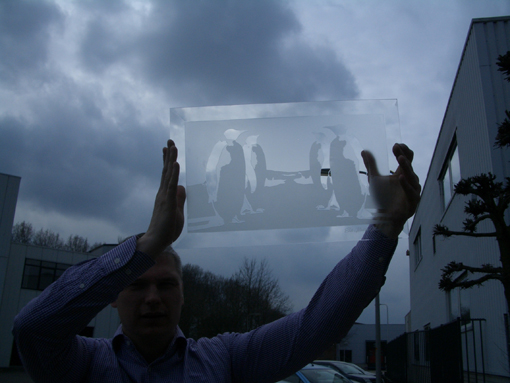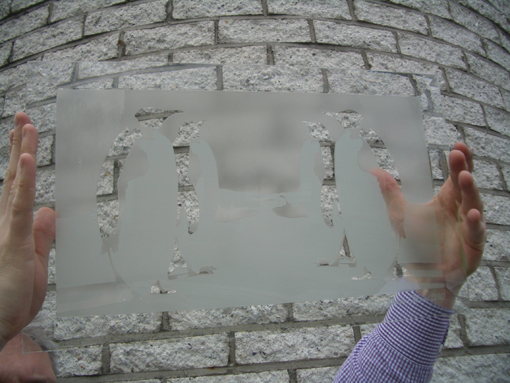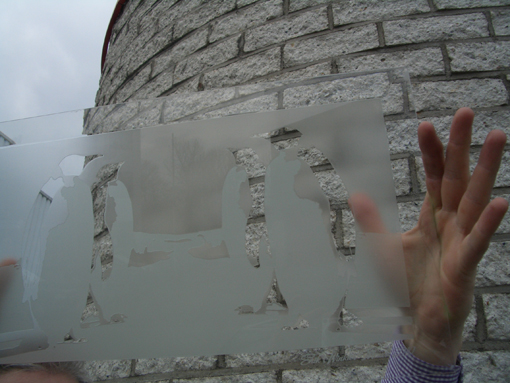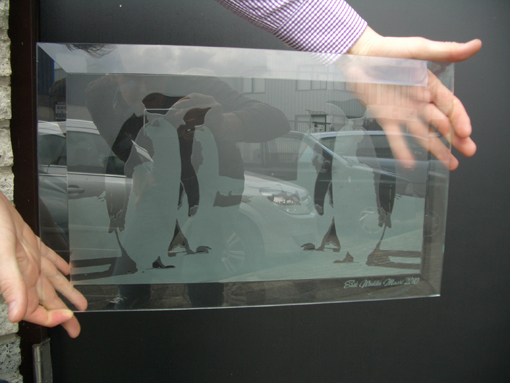
White Aciiiiiid
Since my come back from Praque I had some things that had to be done.
One of them is a white acid test.
After a few tests I made this 3 toned test piece.
Still in the learning phase ;-)
I love your enthusiasm. One thing about you Erik, when you decide you are going to do something, nothing holds you back, I admire that. )
Congratulations on your very first Acid Toned panel, I look forward to seeing what lies ahead. :)
Congratulations! You did good!
Now that you have gotten into toned glass you will find it is tricky to photograph accurately. You will find that the camera sees the toned light in a different manner
than your eyes and brain. Try photographing your glass from the inside of your building with the outside light in the background and it will read a lot better.
Keep it up.
I'll agree with Pat. The toned etching is very interesting as to how the light hits it.
Here's a couple pictures of the same panel. In the morning, it shows a positive image, and in the evening, it goes negative, and sometimes during the day, it completely disappears!
It's really interesting how it changes, which adds a certian mystique to the "all seeing eye".
When "toning" the white acid panel, there's two different ways of going about it. You can mask the panel, then remove sections of the art and tone them. Or, the white acid panel can be painted with asphaltum, then toned, or in combination. Adding the toning mask by painting, can achieve details that you can't get with a vinyl mask, like crosshatching, spounge textures etc.
Oh, and did I mention....if you're going to solution gild over the toned etching, you'll need to do the toning reversed, as the dark tone will yield a light gild, and the light tone will yield a dark gild....it starts messing with your mind a bit, trying to figure the design out!
You keep on as you are....I like your enthusiasm!
Nice work Erik very well done. I like the illustration you used for testing out the tones, it works well for this type of work.
Would look good silvered also. keep it up...
good job.
Next step will be an extra large one.
Have to look around in the shop where a nice one would fit.
I do not know if I will go for the typical 1880-1920 flowers theme, maybe something else again.
I want it to be curlywhurly, reflection of every day life, and beautifull in it self.
ME!!!! OFCOURSE! EUREKA, GET ME OUT OF THE BATH, I HAVE GOT IT!
I have to think about that.
Nice work on your Treble Embossing.
Me thinks Erik will soon discover Glass Edge Lighting. :roll:
Not being at all familiar with acid- do you soak the glass exposing sections at a time to the "darkest" is done first and is in longest? :?:
The clear glass will be named black in the design.
The white etched part will be named 100% white.
This whitening is a layer of glass-crystals that lays on the glass.
Toning down will reduce (etch away) the white glass-crystals layer.
1st tone after 8 minutes for example will be 80% white.
2nd tone after 16 minutes for example will be 60% white.
etc. etc.
If you keep on toning it down, at the end the white glass-crystals will completely be reduced (etched away) and it will be transarant (black) again.
Not absolutely clear, because the etching made the surface of the glass smudged and a bit with a reliëf.